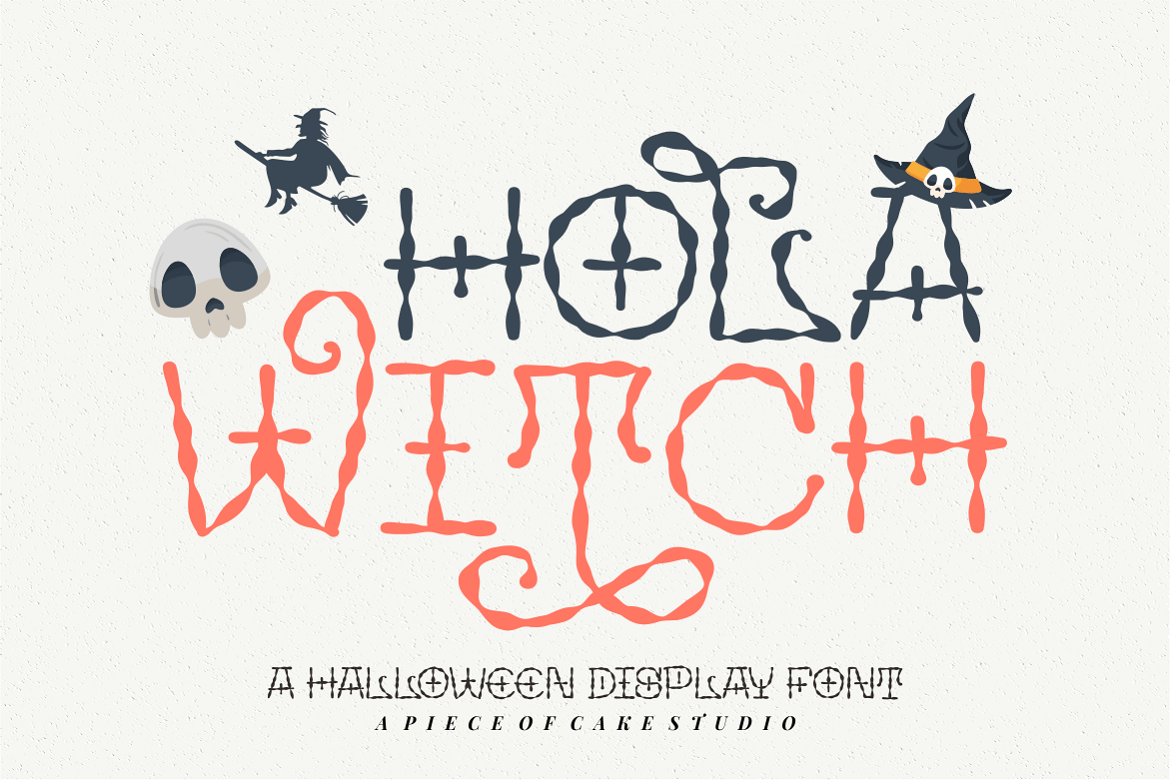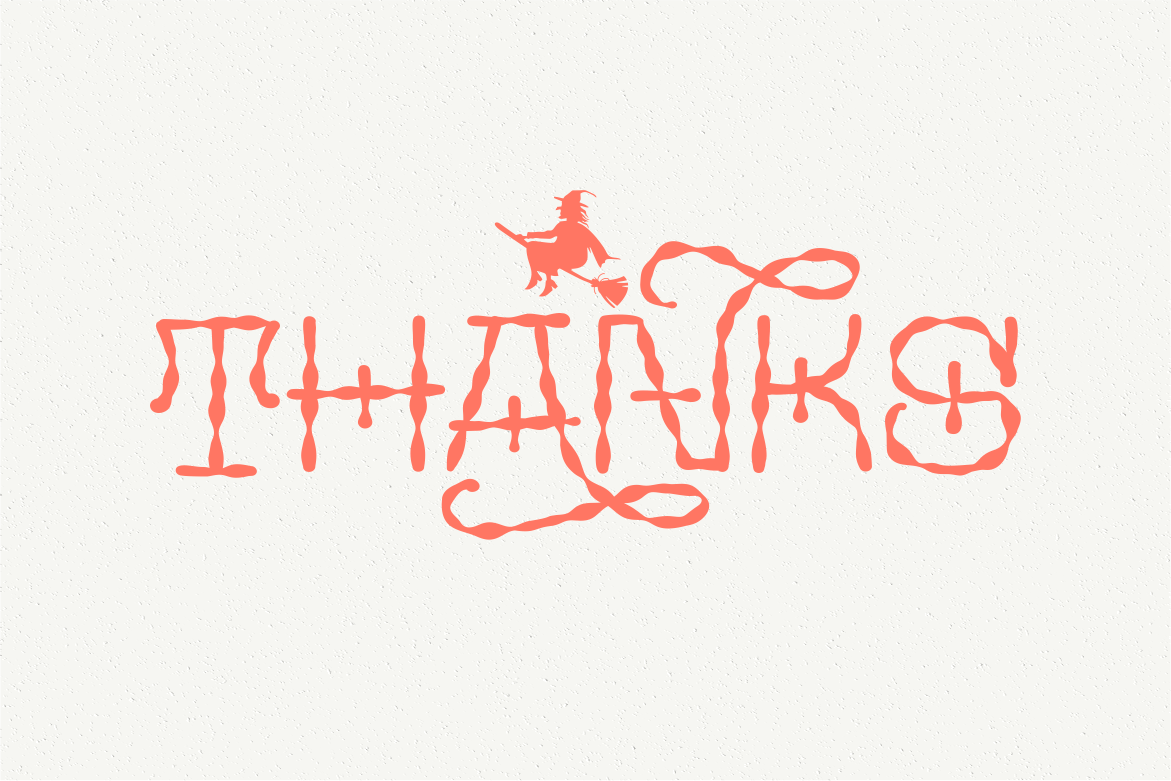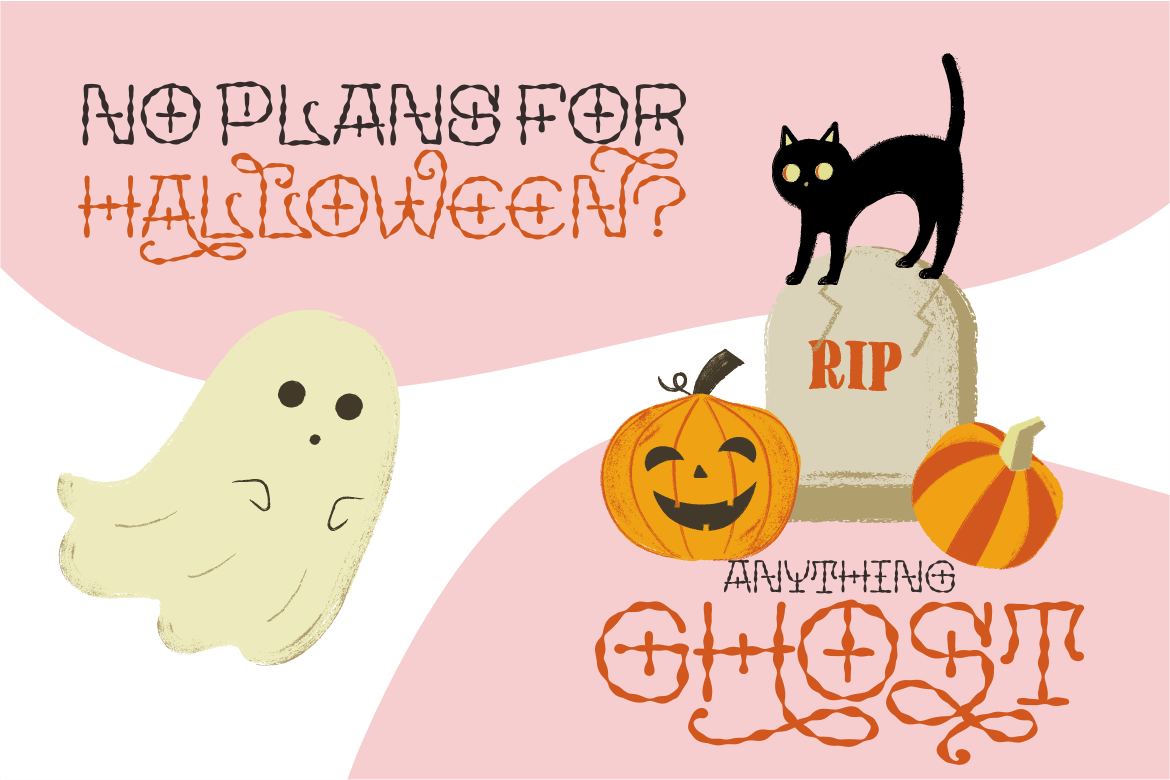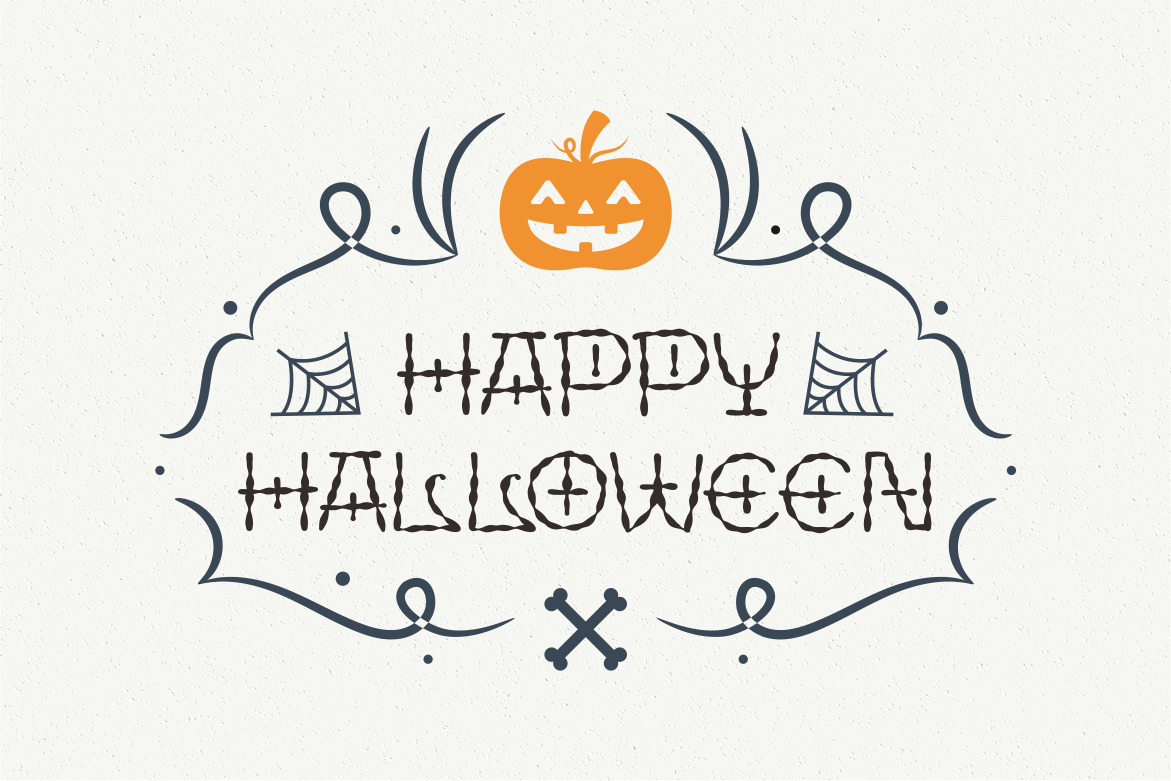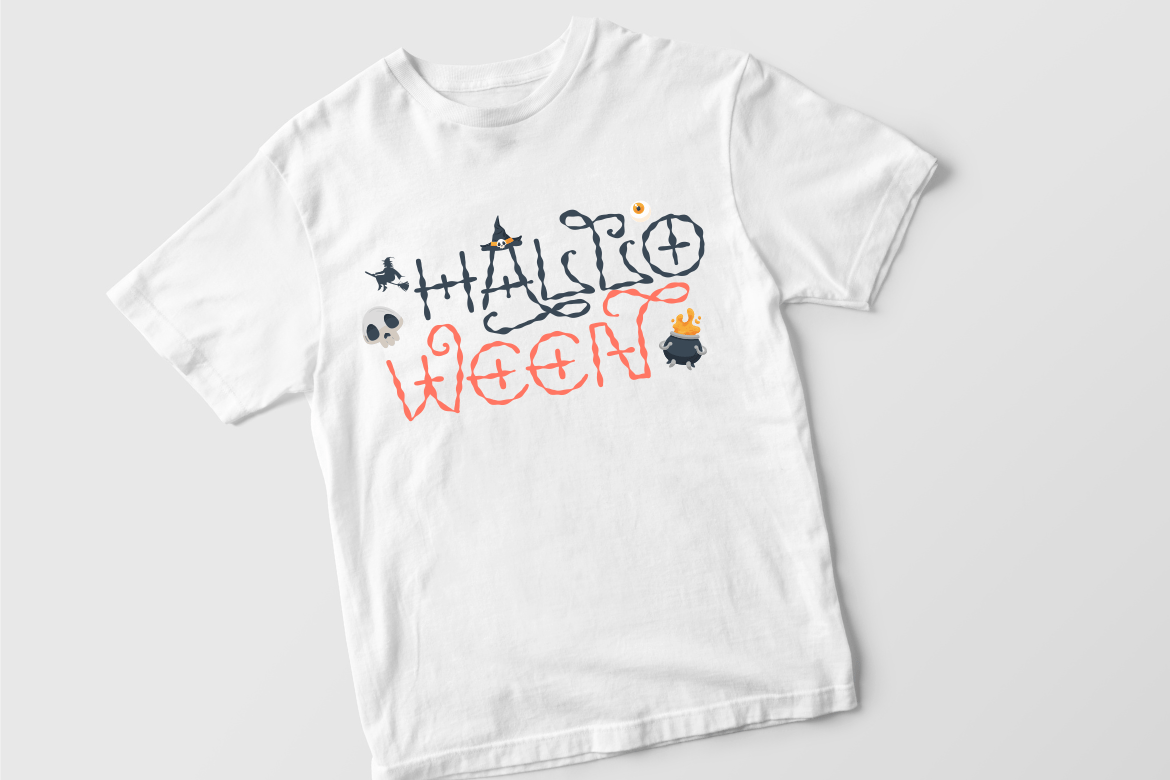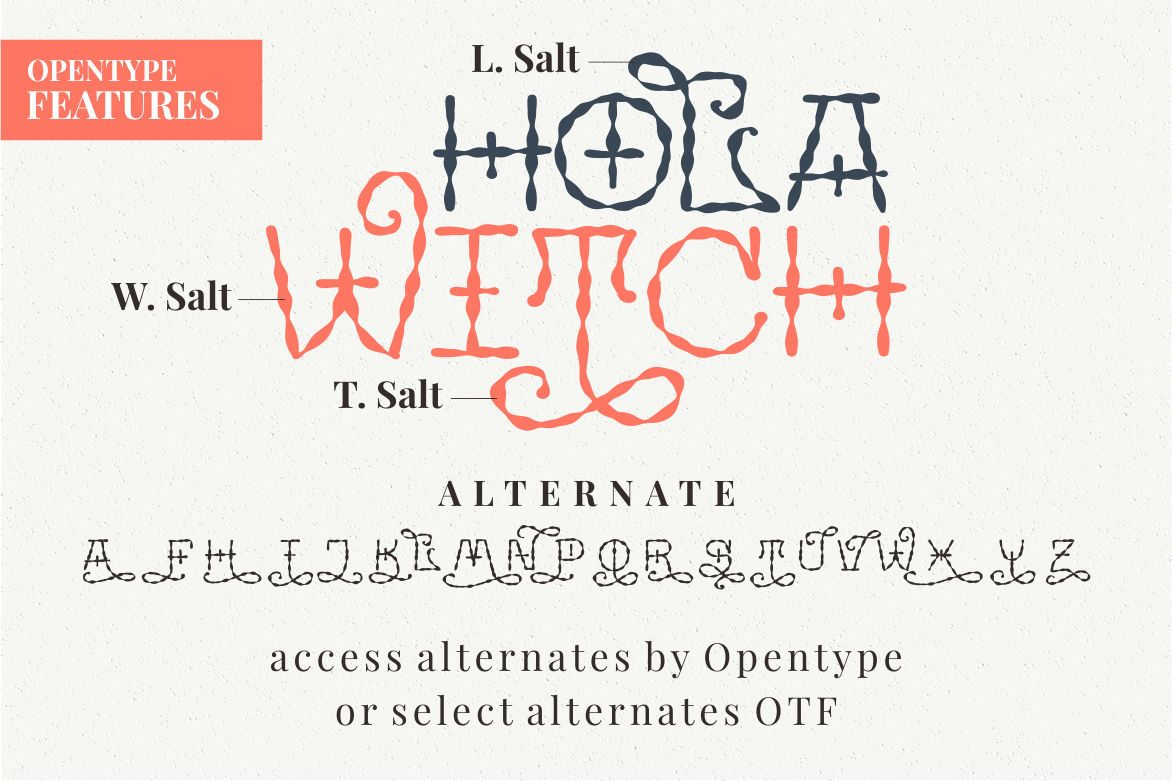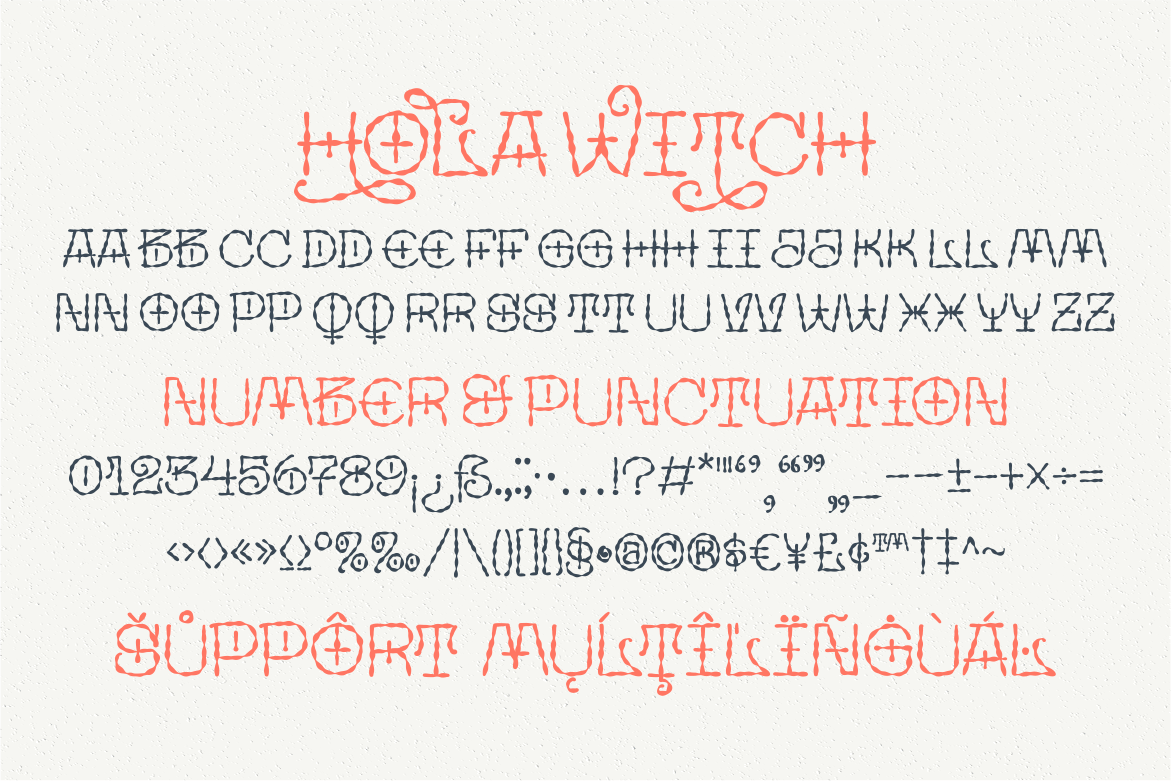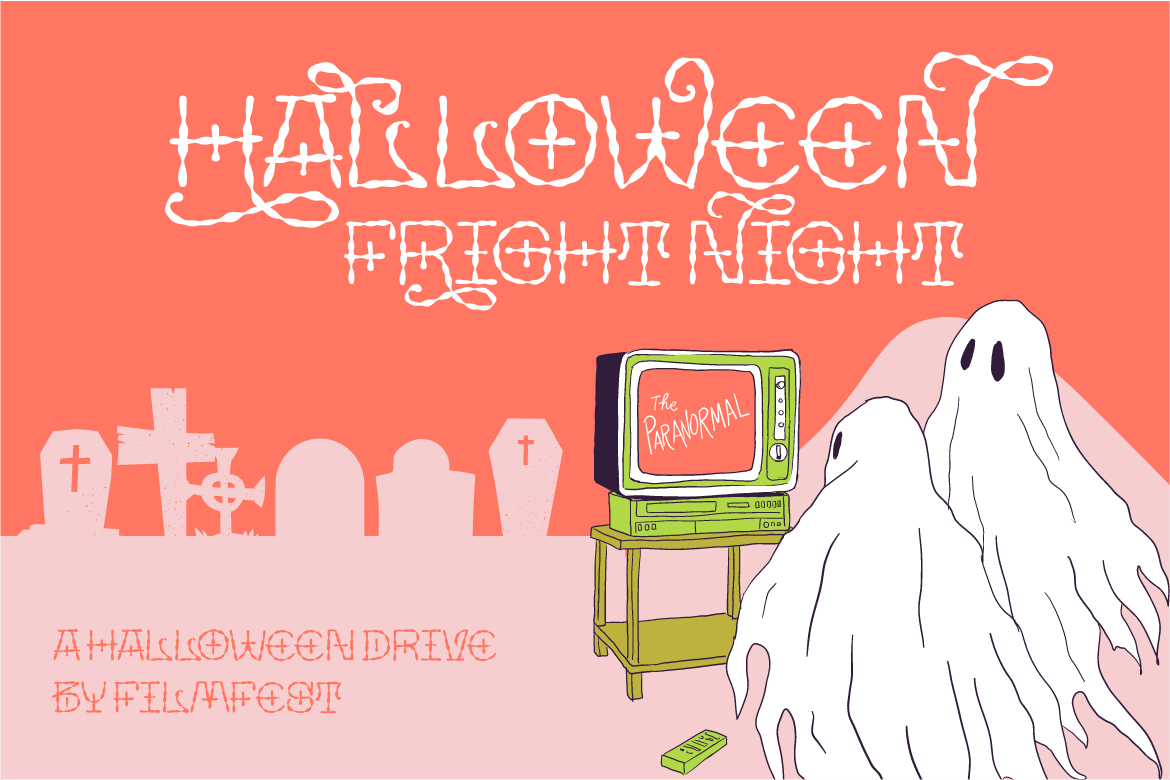
Hola Witch – A Display Font
Introducing, Hola Witch is a display font suitable for your design project needs, such as; halloween themes, social media posts, quotes, overlays on images, tagline logos, posters, print needs, website banners, and more.
- A set of uppercase and lowercase glyphs
- Number, symbol, and punctuation
- Some Swashes and alternates